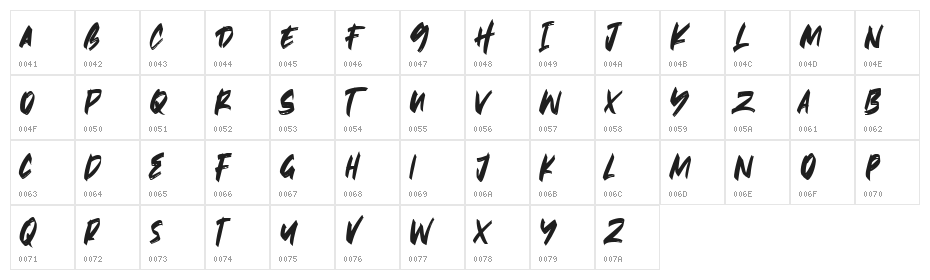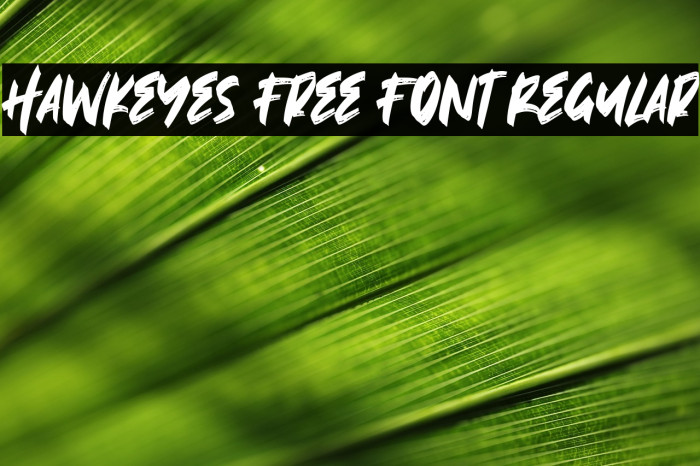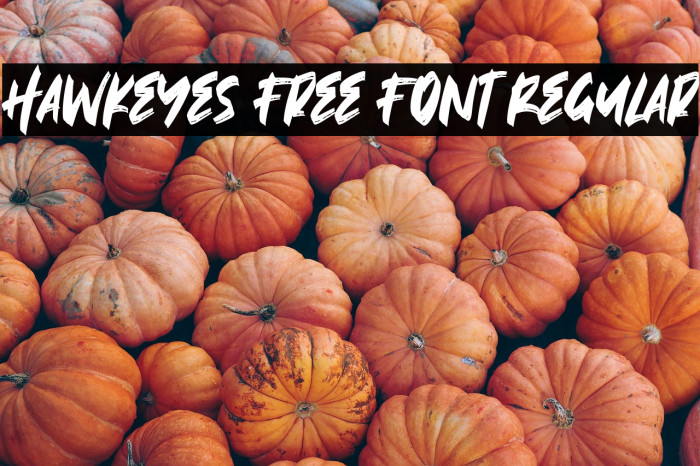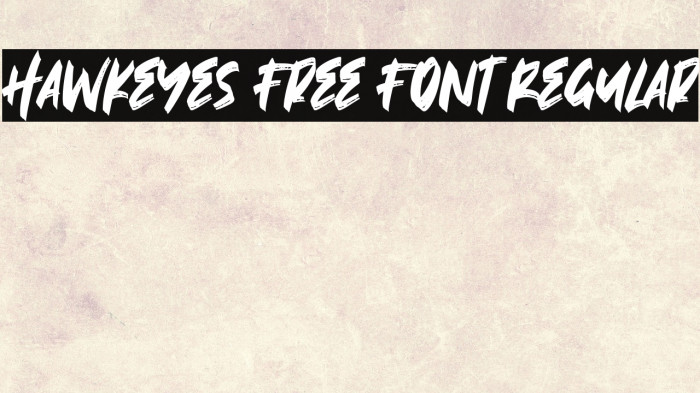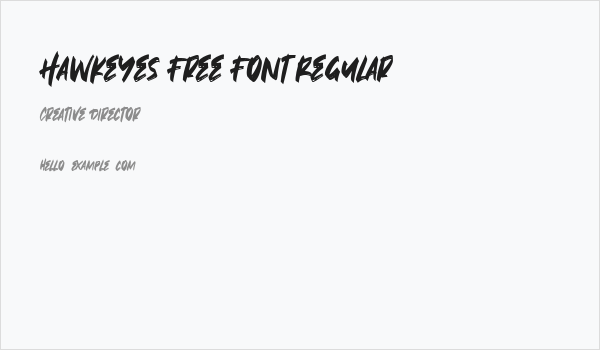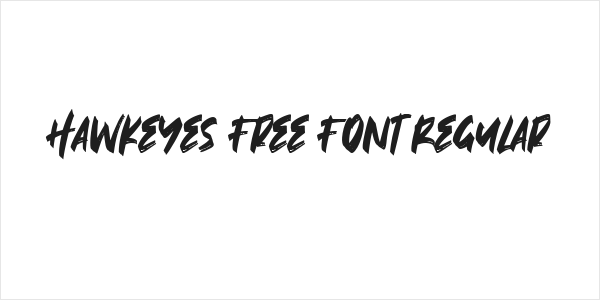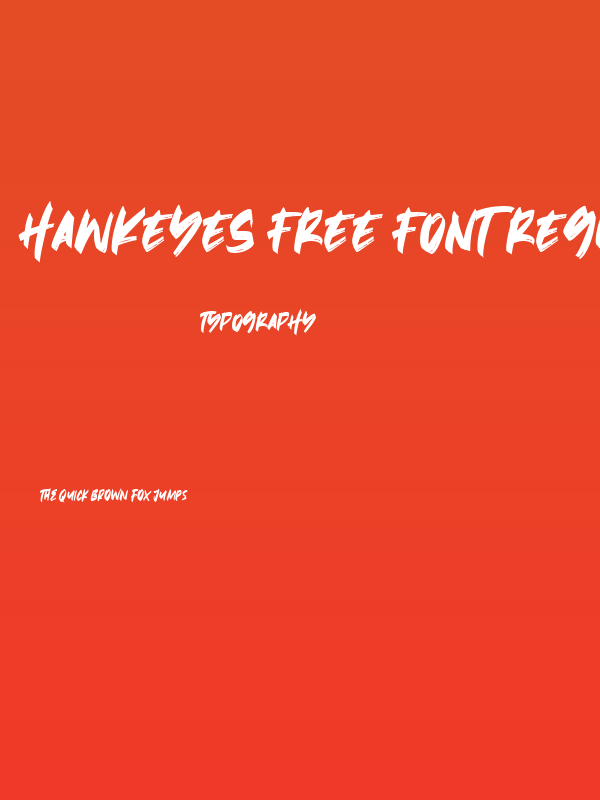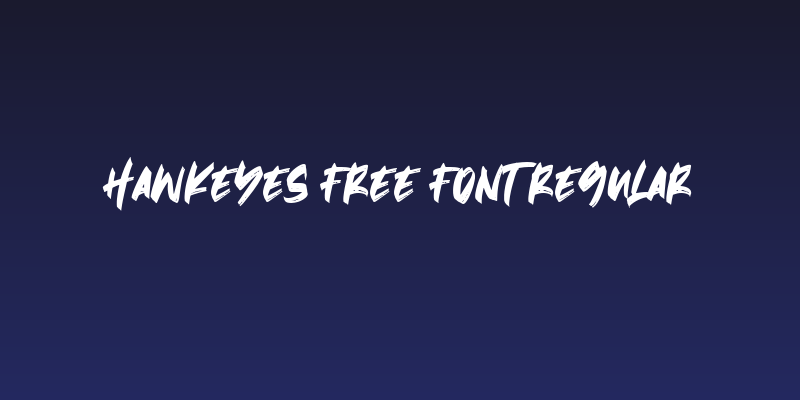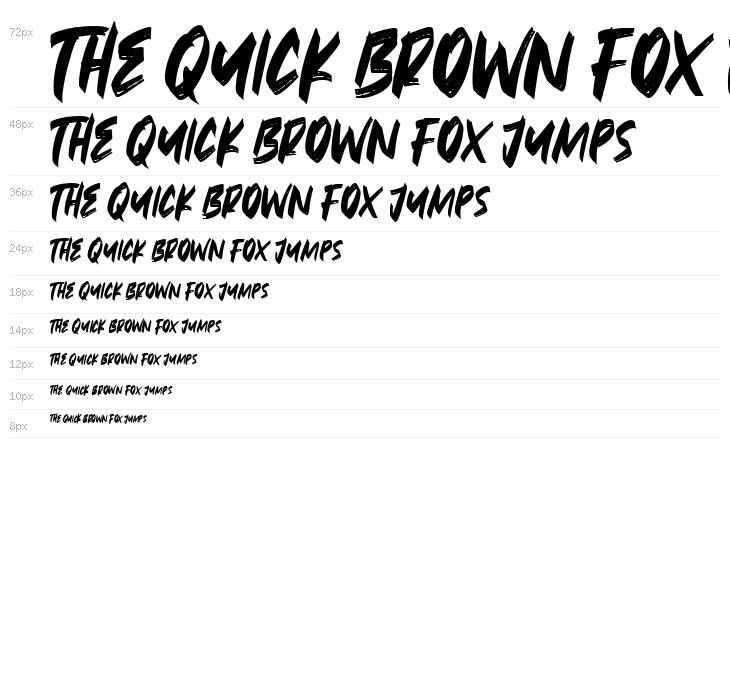
Hawkeyes Free Font Regular Font
Hawkeyes Free Font Regular Description
This font features a bold and dynamic brush style, characterized by its energetic strokes and expressive flair. The letters exhibit a hand-painted appearance, with varying thicknesses that add a sense of movement and vitality. The uppercase and lowercase letters maintain a consistent style, with sharp angles and fluid curves that create a cohesive look. The numbers and special characters are equally expressive, ensuring versatility across different types of content. This font is ideal for projects that require a strong visual impact and a modern, artistic touch.
| Proposed Projects | Ideal for branding, posters, album covers, and any project needing a bold, artistic statement. |